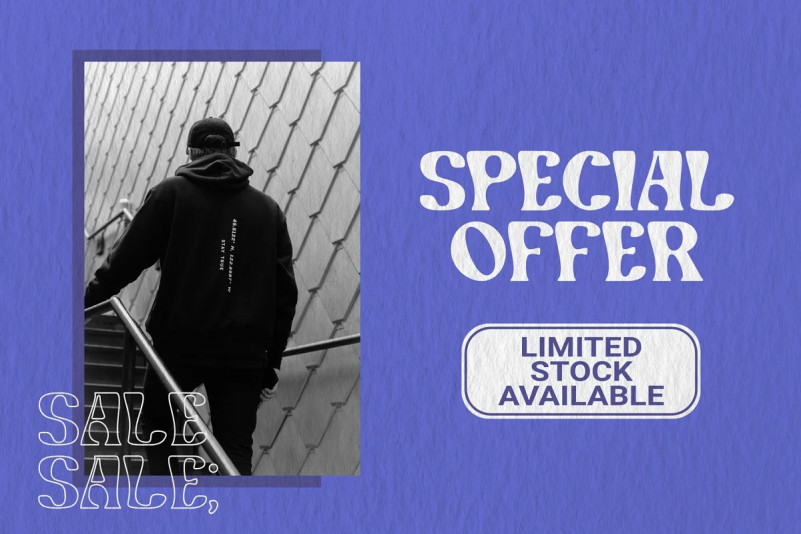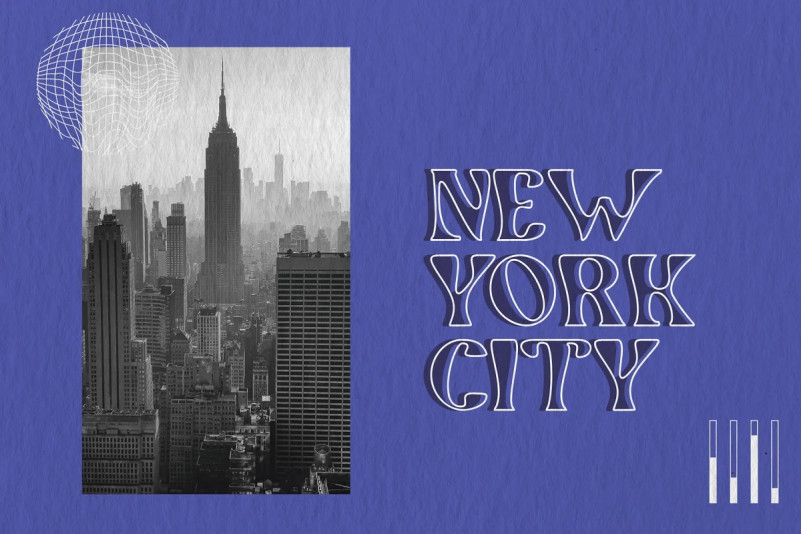
GUMBALL TYPEFACE
Gumball Typeface
Gumball is a hand drawn font using an old letter ruler. It is a versatile sans serif font, perfect to make a statement in postcards, posters, titles, branding and packaging, etc.
The Gumball font family with four fonts: Gumball, Gumball Italic, Gumball Blackout, Gumball Blackout Italic